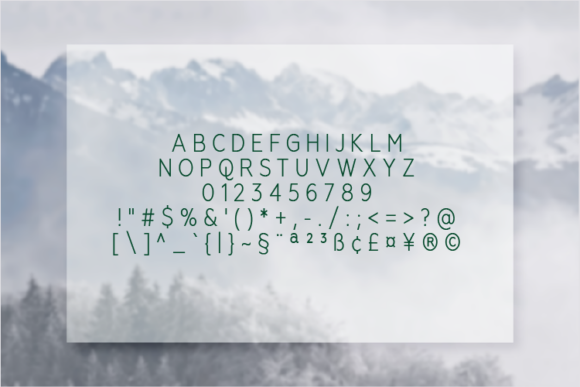
Introducing Allovoneue: A Fresh Geometric Sans-Serif Font
In the world of typography, a new font family has emerged to capture the attention of designers and crafters alike. Meet Allovoneue, a modern, geometric sans-serif font that is poised to revolutionize the way we approach typography. With its sleek lines, sharp edges, and minimal stroke contrast, Allovoneue is the perfect addition to any design project.
What is Allovoneue?
Allovoneue is a geometric sans-serif font family that draws inspiration from the neo-grotesk fonts of the 20th century. Characterized by its geometrical letterforms, sharp edges, and very small stroke contrast, Allovoneue embodies the perfect blend of modernity and classic typography. This versatile font is designed to excel in a wide range of applications, from magazines and posters to branding and more.
Key Features of Allovoneue
• Geometric Design: Allovoneue boasts a geometric design that gives it a fresh and modern look. Its letterforms are carefully crafted to create a sense of balance and harmony.
• Sharp Edges: The sharp edges of Allovoneue add a touch of sophistication and elegance to any design. This feature also helps to create a clear visual hierarchy.
• Minimal Stroke Contrast: With very small stroke contrast, Allovoneue achieves a perfect balance between legibility and aesthetics. This feature makes it ideal for use in a variety of contexts.
• Versatility: Allovoneue is an incredibly versatile font family that can be used in a wide range of applications. Whether you’re designing a magazine, poster, or brand identity, Allovoneue is the perfect choice.
Why Choose Allovoneue?
So, why should designers and crafters choose Allovoneue over other font families? Here are just a few compelling reasons:
• Unique Aesthetic: Allovoneue offers a unique aesthetic that sets it apart from other font families. Its geometric design and sharp edges create a distinctive look that is sure to grab attention.
• Legibility: Despite its geometric design, Allovoneue remains highly legible, even at small sizes. This makes it perfect for use in body text, headlines, and more.
• Flexibility: Allovoneue is designed to be flexible, making it suitable for use in a wide range of applications. Whether you’re designing a logo, brochure, or website, Allovoneue is the perfect choice.
Using Allovoneue in Design
So, how can you use Allovoneue in your design projects? Here are a few ideas to get you started:
• Magazine Design: Use Allovoneue as a headline font to add a touch of modernity and sophistication to your magazine design.
• Poster Design: Create eye-catching posters with Allovoneue. Its geometric design and sharp edges make it perfect for use in posters and flyers.
• Branding: Use Allovoneue as a brand font to create a unique and memorable identity for your business.
In conclusion, Allovoneue is a fresh, geometric sans-serif font family that is sure to revolutionize the way we approach typography. With its sleek lines, sharp edges, and minimal stroke contrast, Allovoneue is the perfect addition to any design project. Whether you’re a designer, crafter, or simply someone who appreciates great typography, Allovoneue is definitely worth checking out.